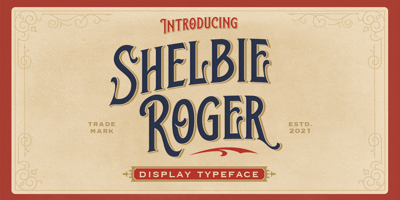
Shelbie Roger Font Family was designed by Hendry Juanda and published by Letterhend. Shelbie Roger contains 1 styles and family package options. Shelbie Roger is a ornamental serif with classy and classic look with vintage feel, inspired by 60s and 70s signages. This font perfectly made to be applied especially in logo, and the other various formal forms such as invitations, labels, logos, magazines, books, greeting / wedding cards, packaging, fashion, make up, stationery, novels, labels or any type of advertising purpose.Features :uppercase and lowercasenumbers and punctuationmultilingual & alternatePUA encodedWe highly recommend using a program that supports OpenType features and Glyphs panels like many of Adobe apps and Corel Draw, so you can see and access all Glyph variations.